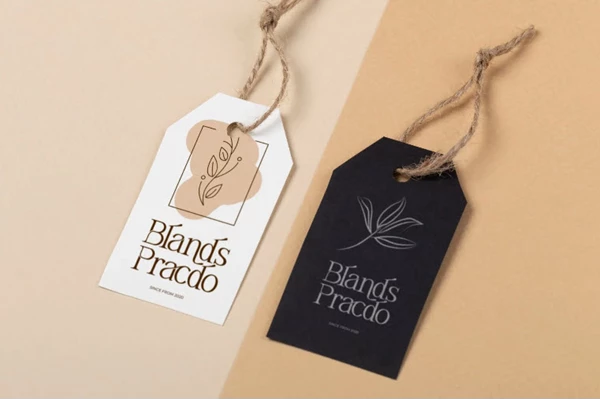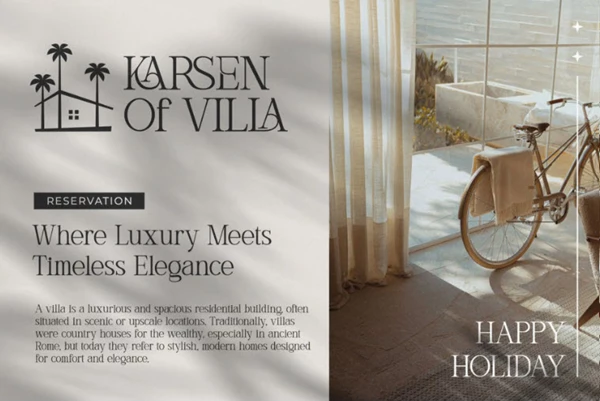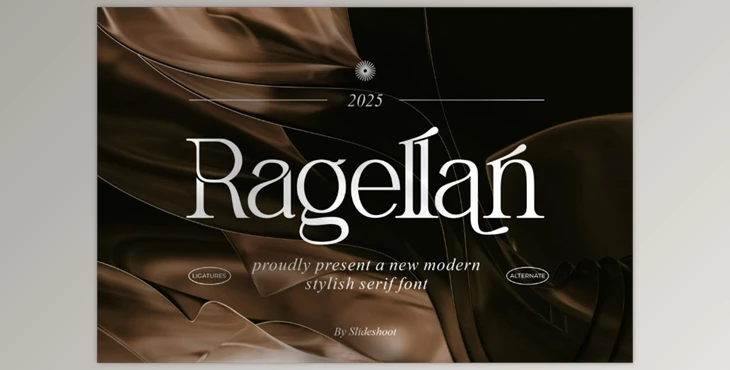
Slide Shoot - Ragellan - Unique Serif Font:
Marketing text for Slide Shoot - Ragellan is a modern stylish font as a serif that goes with any date for design. It's sharp aesthetic look gives it a unique feature suitable for many invitation design templates, company logos, book and movie titles. It can also serve to enhance the looks of business name cards as well as brand names and many other inventions to make them much more sophisticated and sharp.
- Complete Character Collection: Character symbols include other letters of the alphabet both capitalized and uncapitalized with symbols like digits alongside certain punctuation marks.